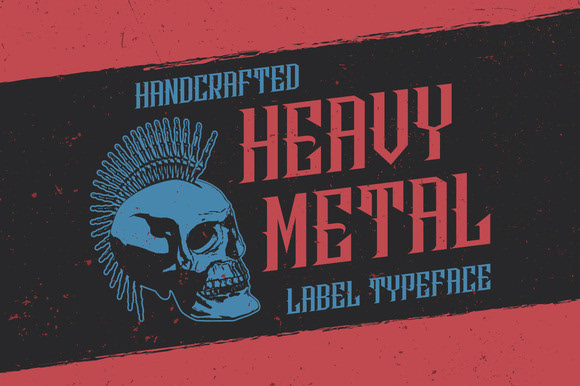
HeavyMetal Typeface by Vozzy
Here is a classic look label typeface named "HeavyMetal". It's made in strong and dynamic label style. Font is perfect for any labels design of whiskey, rum or brandy.
Two styles - serif and simple, regular and italic.